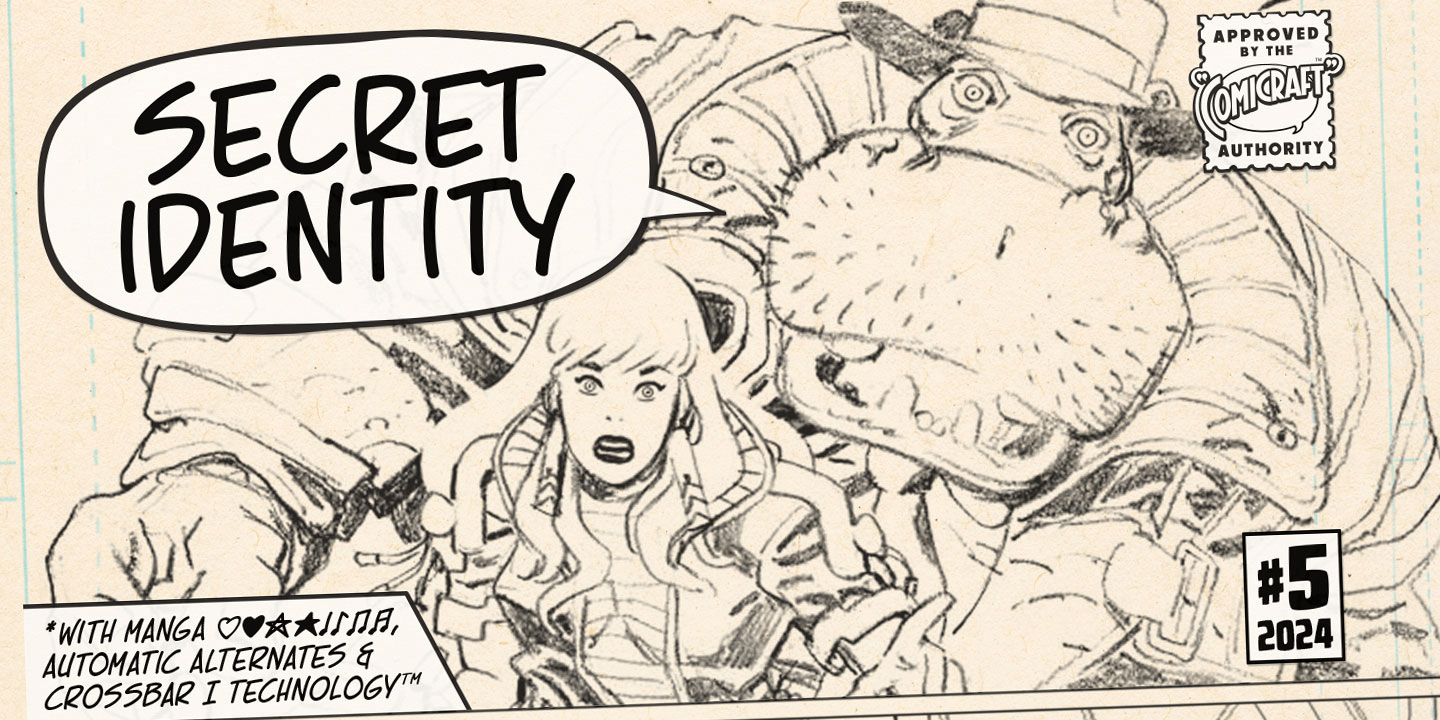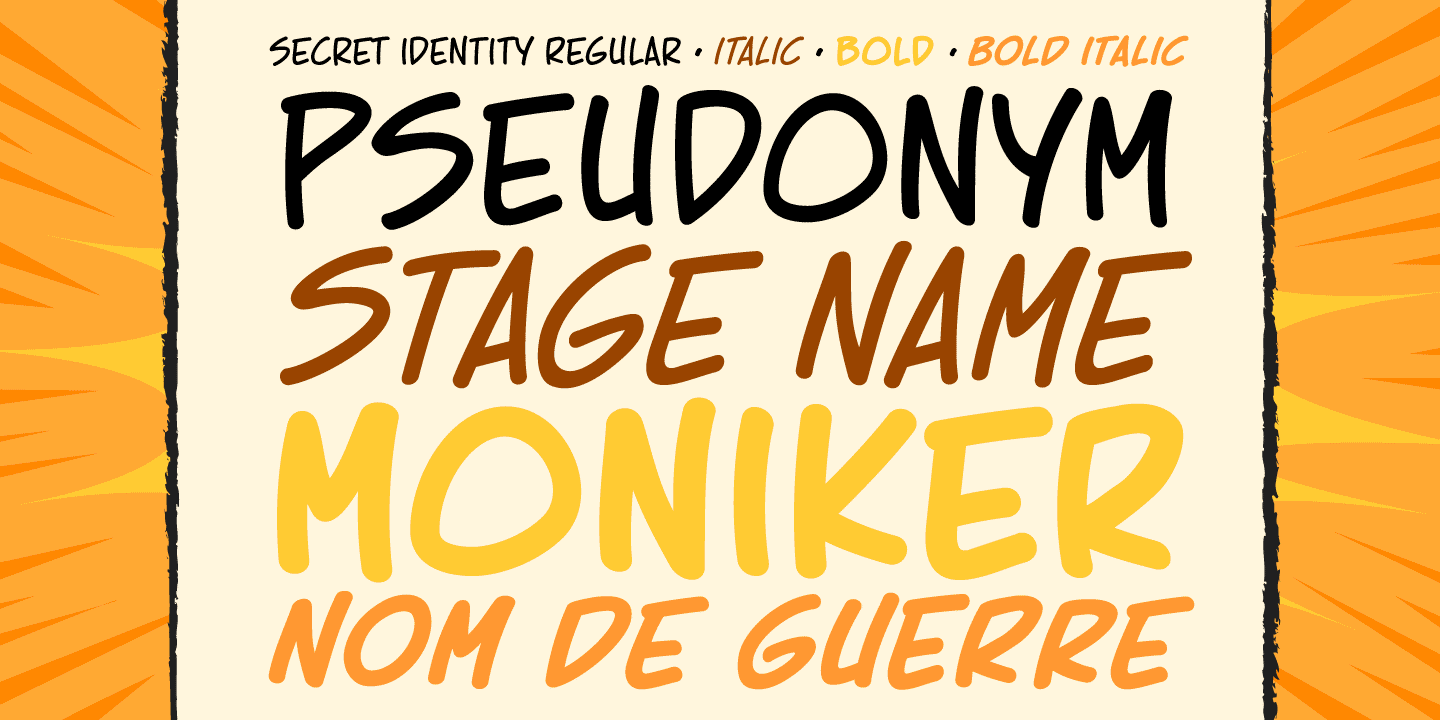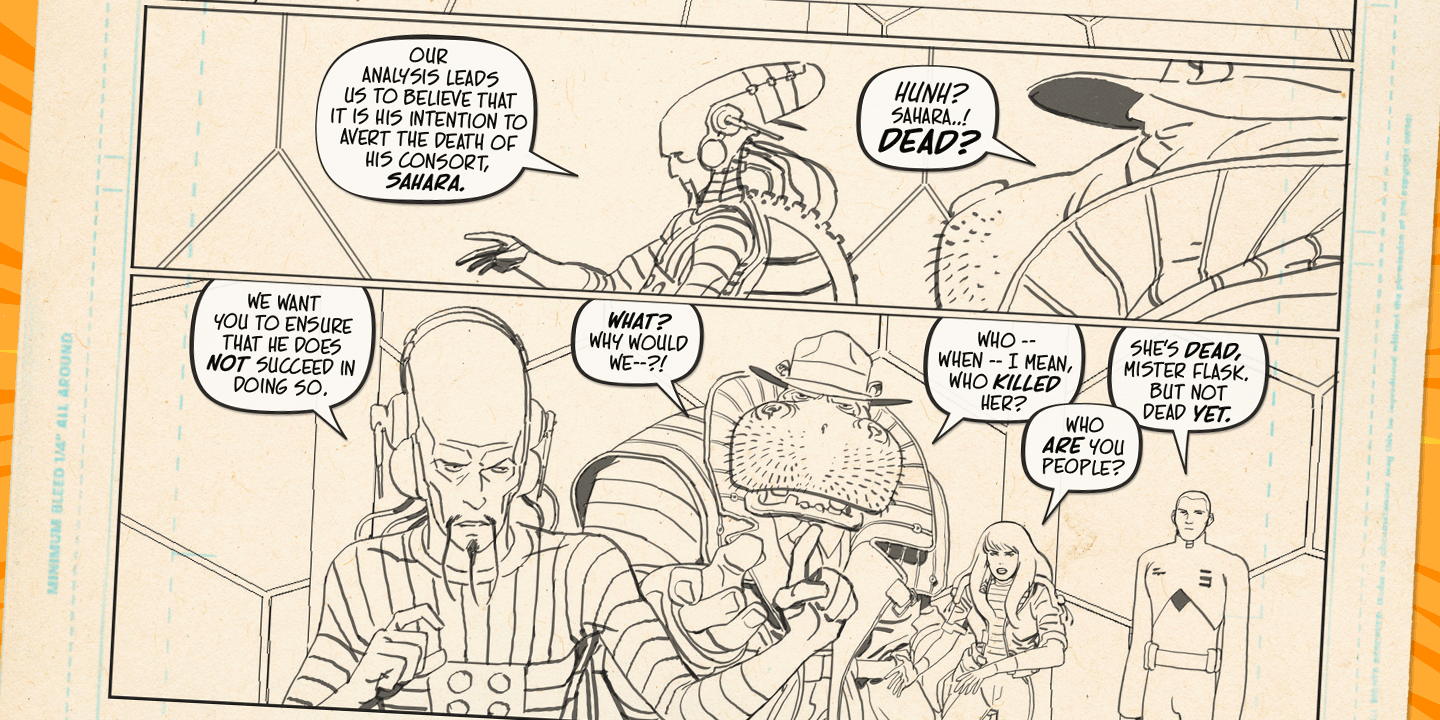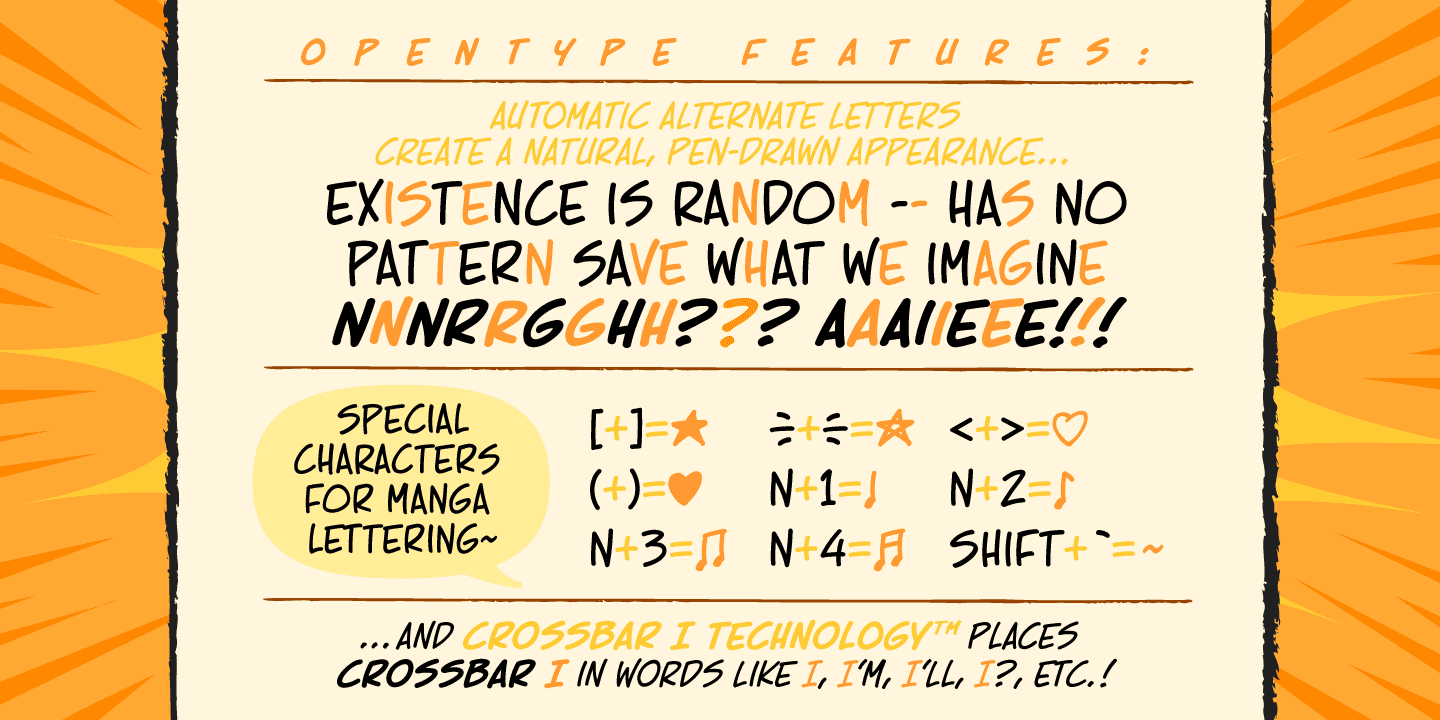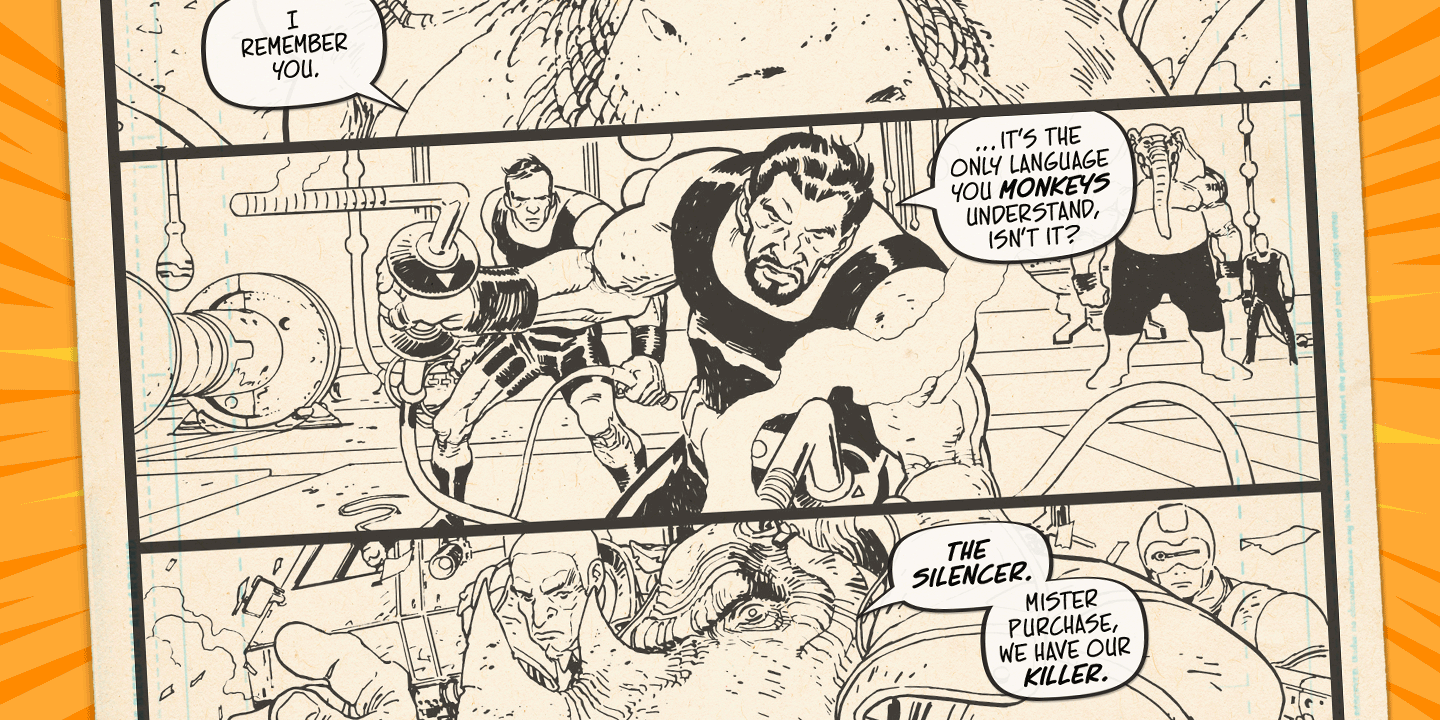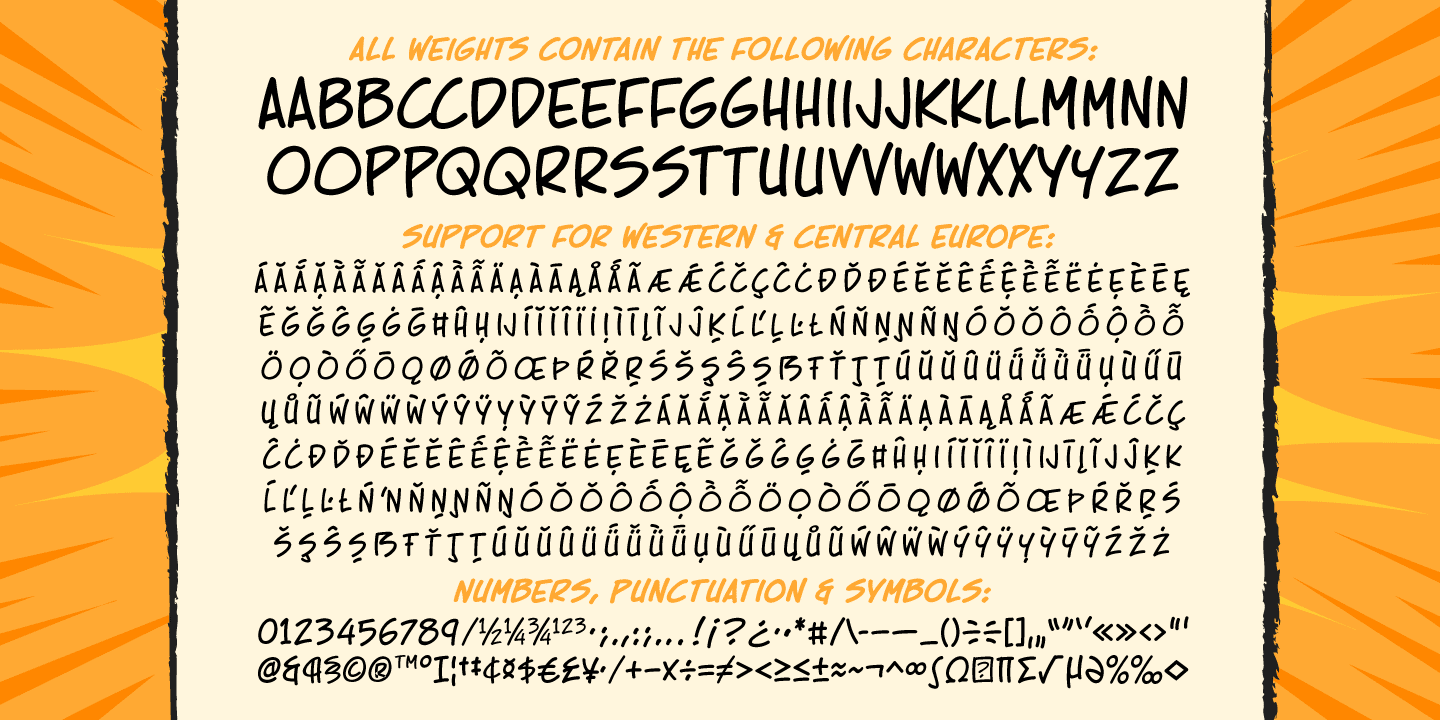
Secret Identity
Font Family by Comicraft Fonts
Every superhero needs one! It might be as simple as a pair of horn-rimmed glasses, or a blue suit and tie. Or perhaps you use a magic word or a pair of negabands to clash together to transform from an unassuming wallflower into a powerful hero! But regardless of your method, a Secret Identity is key to hiding in plain sight and keeping the paparazzi away from the door of your fortress of solitude.
Now Comicraft has designed the perfect font to keep your daily life secret! Featuring four all-uppercase weights with powerful auto-alternates, Secret Identity expertly disguises your superhuman powers in a large, friendly, single stroke, slightly condensed style, that's built to fit more text in every softly spoken word balloon, and bring life to your loudest proclamations!